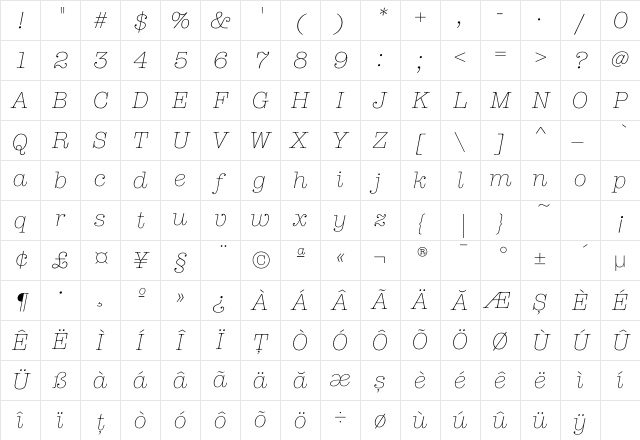
Romtypewriter LightItalic Free Font
Romtypewriter LightItalic
Style: LightItalic
Design Context for Romtypewriter
Romtypewriter uses fixed-width spacing throughout, giving it the structured, systematic character associated with coding environments and technical documentation. The slanted form adds forward momentum and visual energy. Its slender proportions lend an understated elegance to any composition.